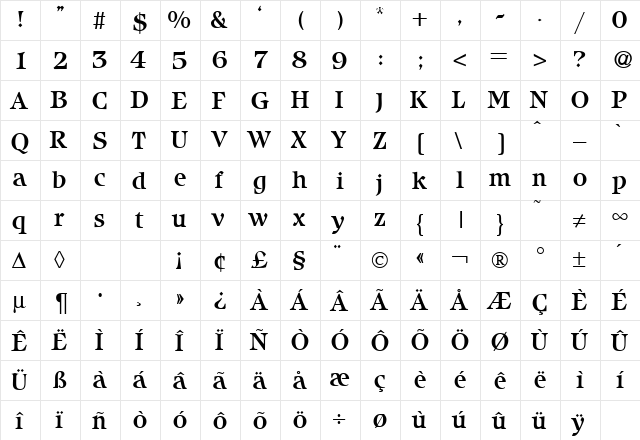
IcebergMedium Regular
Design Context for IcebergMedium Typeface
IcebergMedium offers clean, dependable letterforms without strong stylistic allegiance, making it a practical choice for designers who need flexibility.
Pro Tip: Pair IcebergMedium with a font of contrasting weight or personality to build a more expressive typographic hierarchy.